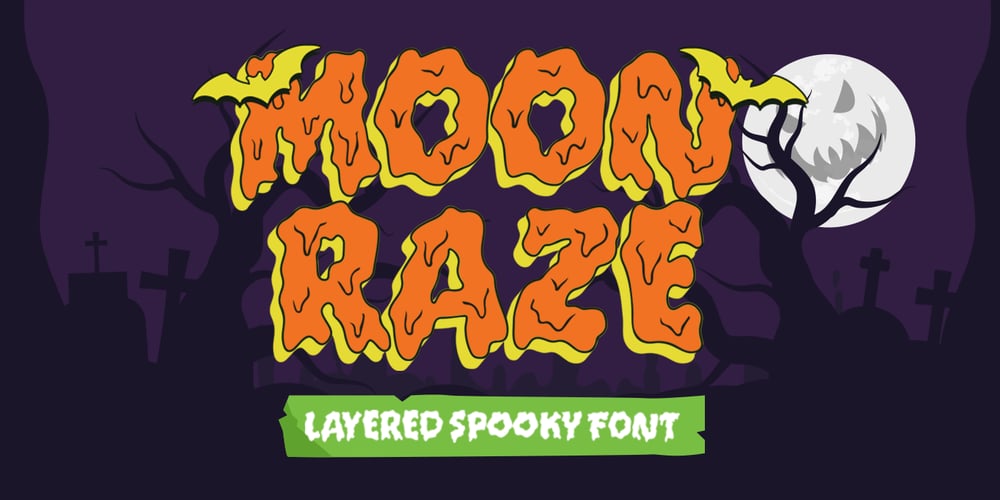
Moonraze Font Family was designed by Hendry Juanda and published by Letterhend. Moonraze contains 4 styles and family package options. Moon Raze – A display typeface font with bold and unusual form. This font has unique shape, very suitable for horror, thriller and spooky theme design yet still fun and playful. This font also perfectly made to be applied especially in logo, and the other various formal forms such as invitations, labels, logos, magazines, books, novels, labels or any type of advertising purpose.Features : numbers and punctuation multilingual PUA encoded We highly recommend using a program that supports OpenType features and Glyphs panels like many of Adobe apps and Corel Draw, so you can see and access all Glyph variations.